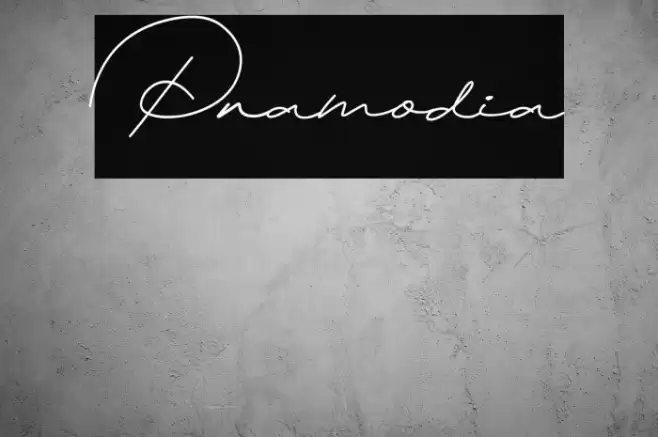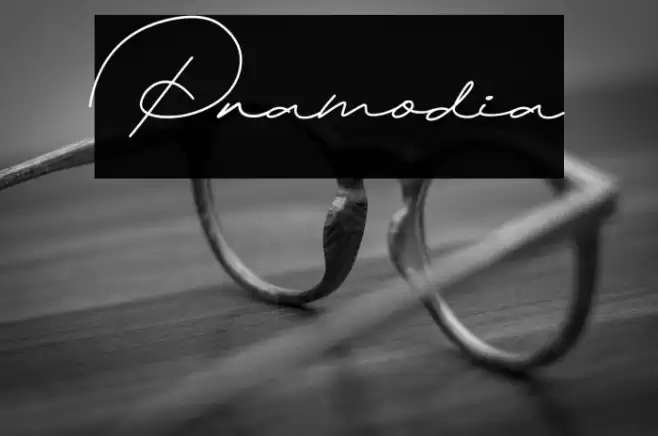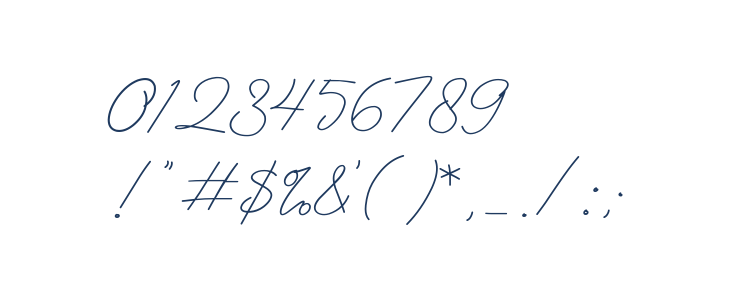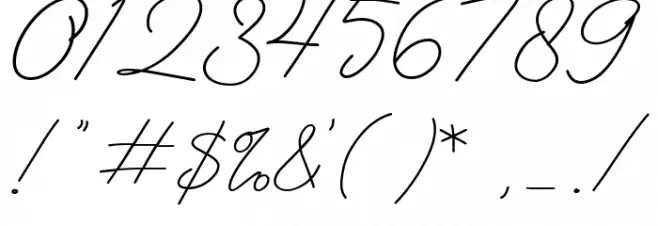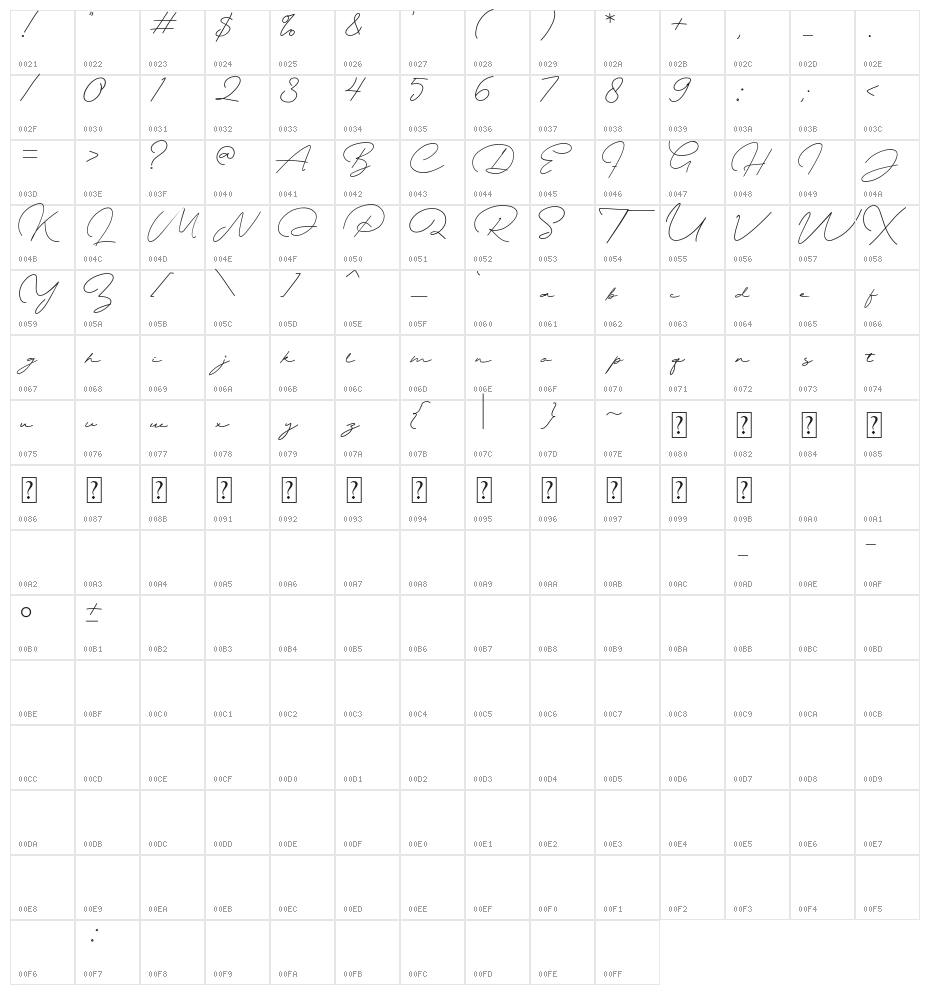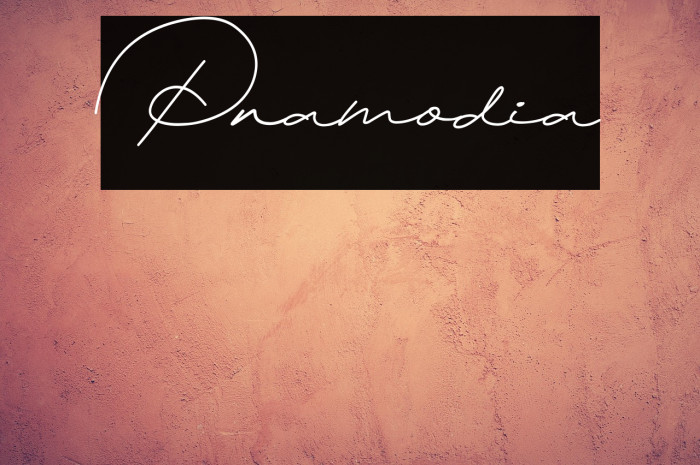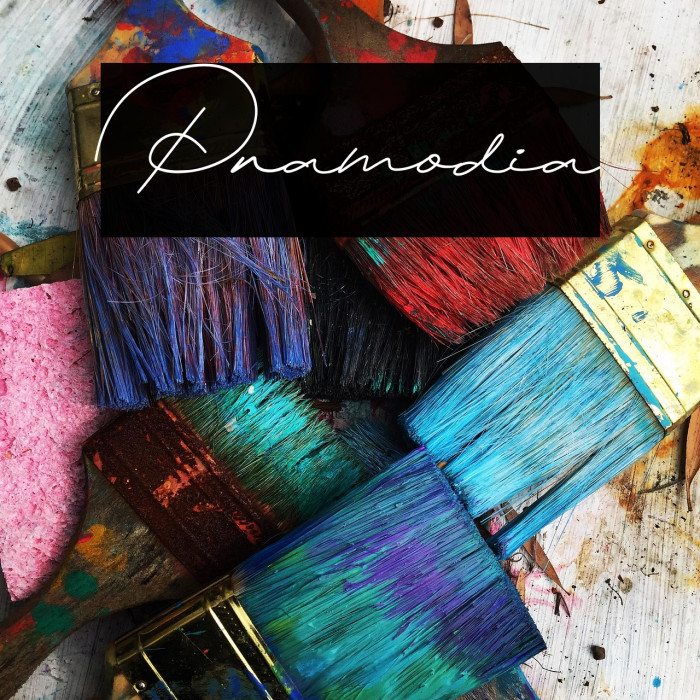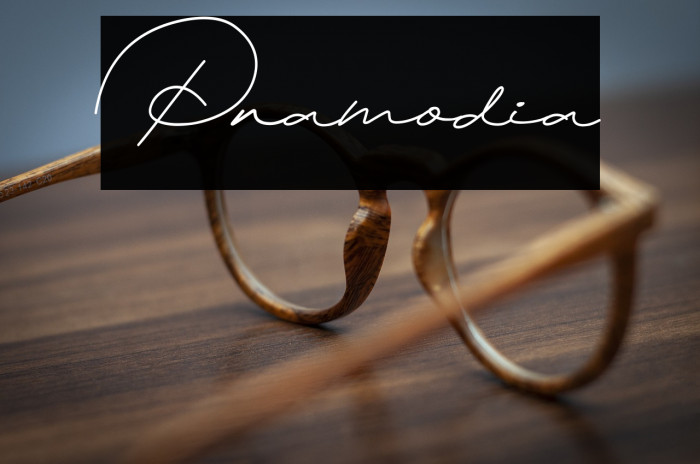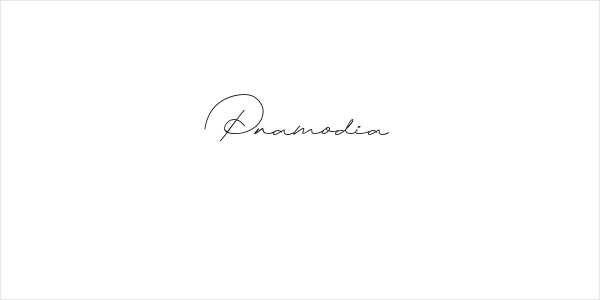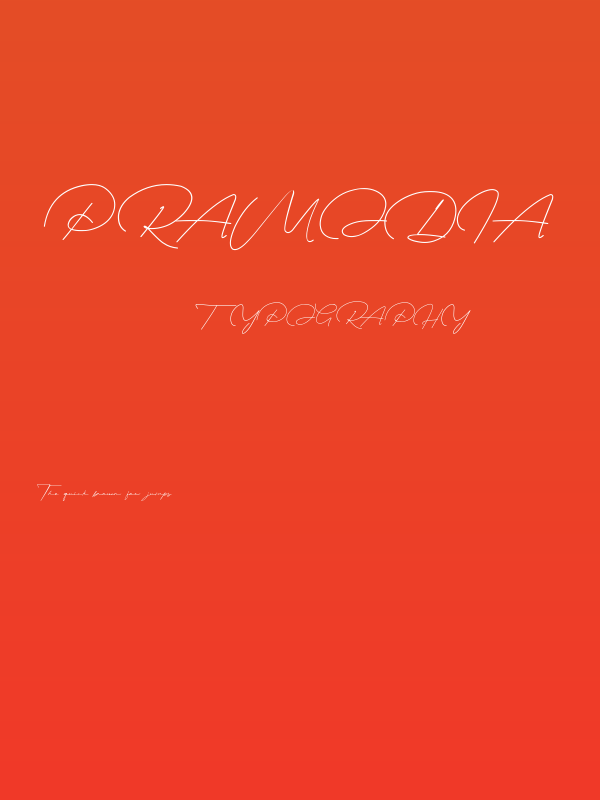
Pramodia Font
Pramodia Description
This elegant script font exudes a sense of sophistication and fluidity, characterized by its graceful, flowing lines and delicate curves. The letters are interconnected, creating a seamless and harmonious appearance that mimics natural handwriting. The uppercase letters are slightly more ornate, with subtle flourishes that add a touch of flair, while the lowercase letters maintain a consistent, smooth rhythm. The numerals and special characters are crafted with the same attention to detail, ensuring a cohesive look across all elements. This font is ideal for projects that require a personal, handwritten touch, such as invitations, greeting cards, and branding materials.
A graceful script font with flowing, interconnected letters and elegant curves from Regular fonts.
- Proposed Projects: Ideal for wedding invitations, personal branding, greeting cards, and elegant stationery.
- Character Spacing: Tight
- Overall Style: Elegant, Handwritten
- Use Case: Logos, Invitations, Personal branding